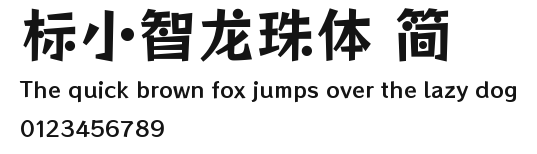
标小智龙珠体 简 Preview
• Font Name: 标小智龙珠体 简
• Full Font Name: 标小智龙珠体 简 Regular
• PostScript Name: LogoSCLongZhuTiZHS-Regular
• Designer: Fontworks公司、龙珠体补字小组: ZERO子、时光羊、荆南、频凡、刘鹏、Little White Dog、奈白不弍、帆影Magmeta、白日月球、ChaoTawei、雨三(排名不分先后)
• Manufacturer: 标小智
About 标小智龙珠体 简.ttf
标小智龙珠体 简.ttf is a modern, elegant sans-serif font designed for ultimate readability and visual harmony. Perfect for branding, headlines, web design, and print materials.